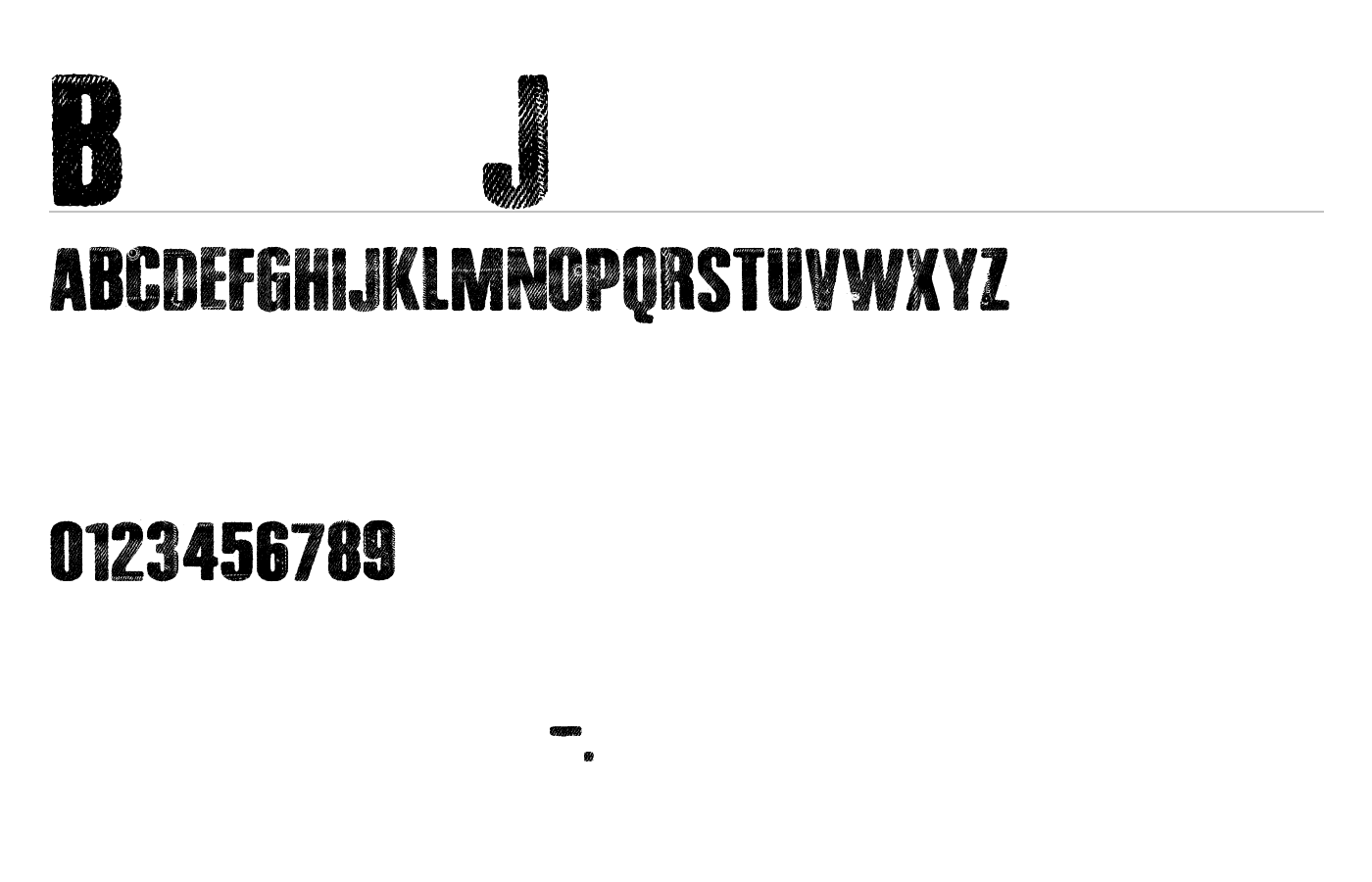
Black Jeans is a bold, condensed sans serif font with a rough, textured style that gives it a vintage, handcrafted feel. Its strong, blocky letterforms and uneven shading make it ideal for adding a rugged, authentic touch to posters, logos, and packaging, especially in casual or retro-themed designs. This font works well where a striking, informal impact is needed, evoking a sense of durability and laid-back confidence.
Black Jeans Font
About Black Jeans Font
| Font family | Black Jeans Font |
| Designer | Imagex |